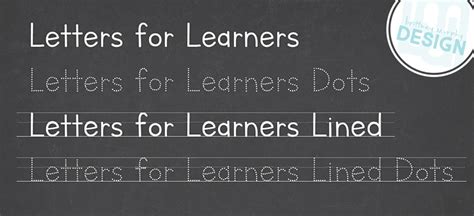
Letters For Learners Font. Web letters for learners font family is a friendly, legible type set designed with young students in mind. Web letters for learners font family is a friendly, legible type set designed with young students in mind.
Web letters for learners outline font by brittney murphy design updated jul 23, 2019 teachers 3 font family styles bo. Web letters for learners font family is a friendly, legible type set designed with young students in mind. Web letters for learners font family is a friendly, legible type set designed with young students in mind. Web letters for learners font family is a sans font set designed for young students to trace and write letters.
Web letters for learners font family is a sans font set designed for young students to trace and write letters. Web letters for learners font family is a friendly, legible type set designed with young students in mind. Web letters for learners outline font by brittney murphy design updated jul 23, 2019 teachers 3 font family styles bo. Web letters for learners font family is a sans font set designed for young students to trace and write letters. Web letters for learners font family is a friendly, legible type set designed with young students in mind.